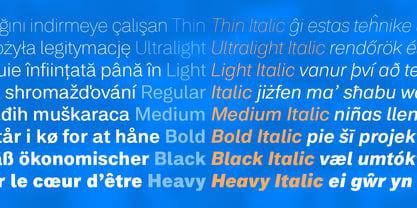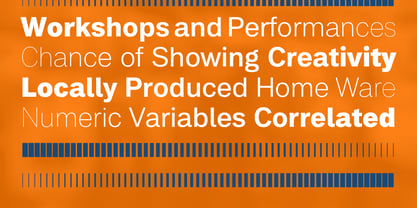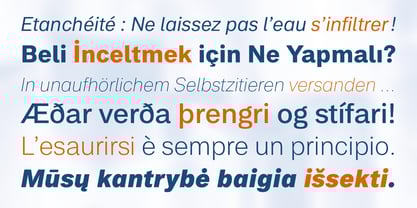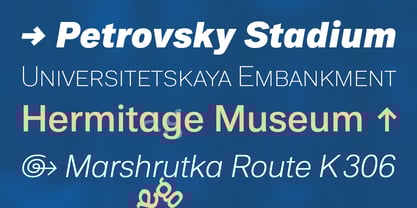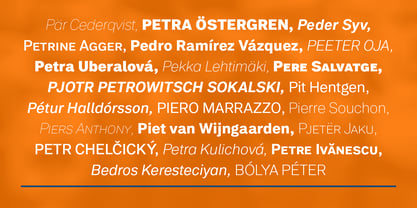
Peter Font
Peter Font is perfect for friendly business branding, approachable corporate communications, personal service companies, reliable brand identities, trustworthy professional signage, dependable small business materials, honest marketing campaigns, neighborhood business logos, community-focused branding, and straightforward commercial communications.
Peter Font is exciting because it embodies the qualities of trustworthiness and dependable character with its honest, approachable letterforms that create immediate personal connections and inspire confidence in business relationships. Its reliable character design combines professional competence with human warmth, making it perfect for brands that want to communicate integrity, reliability, and the kind of personal touch that builds lasting customer relationships in competitive service markets.
The Peter Font family includes Light, Regular, Medium, Bold weights, friendly Italic variations, Condensed styles, Reliable alternates, Trustworthy flourishes, Dependable ornaments, and Personal elements, providing designers with comprehensive tools for creating approachable business typography that builds trust and communicates professional reliability with human authenticity.
Peter Font Free Download delivers trustworthy business typography for brands that prioritize personal relationships and dependable service, featuring carefully crafted letterforms that embody the integrity and reliability essential for successful service-based businesses. This dependable typeface combines professional credibility with approachable charm, creating the perfect solution for service companies, local businesses, and professional practices that build success through personal trust and reliable performance.
Whether you're developing local business identities, designing service company materials, creating professional practice communications, or producing community-focused brand messaging, Peter Font provides the trustworthy foundation needed for authentic business relationships. Its dependable character makes it particularly effective for professional services, local retailers, community organizations, and family businesses that thrive on personal connections and reliable service delivery.
Perfect for small business owners, service industry marketers, professional practice developers, and brand designers working with community-focused businesses, this font offers the reliable qualities essential for successful local market positioning. The typeface's trustworthy nature ensures consistent authenticity across both digital business platforms and traditional local advertising materials.
Peter Font includes comprehensive business-focused character sets, reliability-inspired design elements, and trust-building spacing that guarantees superior performance in professional service applications. Its dependable approach to typography makes it indispensable for businesses building success through personal relationships and reliable service. Build lasting trust with Peter Font Free Download and create typography that truly delivers on its promises.